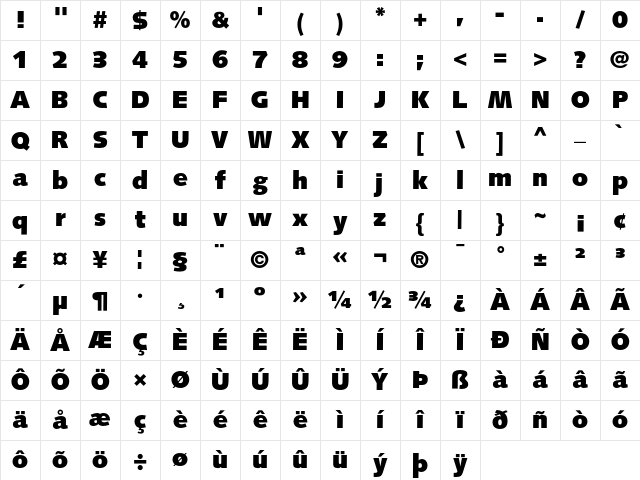
Syntax UltraBlack
Style: UltraBlack
Complete Syntax UltraBlack glyph index. Displaying only characters natively supported by Syntax UltraBlack font.
Design Context for Syntax
Syntax is a composed and adaptable typeface that performs quietly and consistently across a wide range of design contexts.